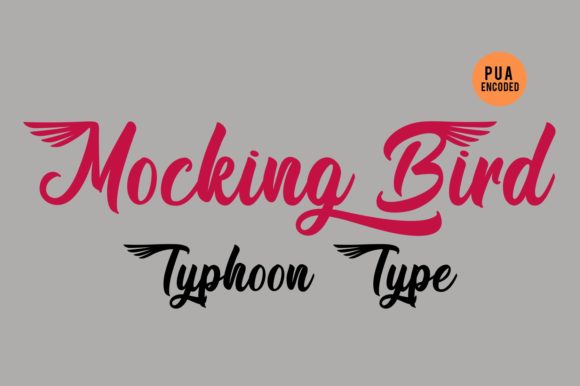
Introduction to Mocking Bird Font
Mocking Bird is a striking and bold script font that possesses a unique style.
Key Features of Mocking Bird Font
Why Choose Mocking Bird Font?
Mocking Bird Font offers exceptional quality and versatility, making it a valuable addition to your design toolkit. Whether you’re creating for personal projects or commercial use, Mocking Bird Font delivers professional results.